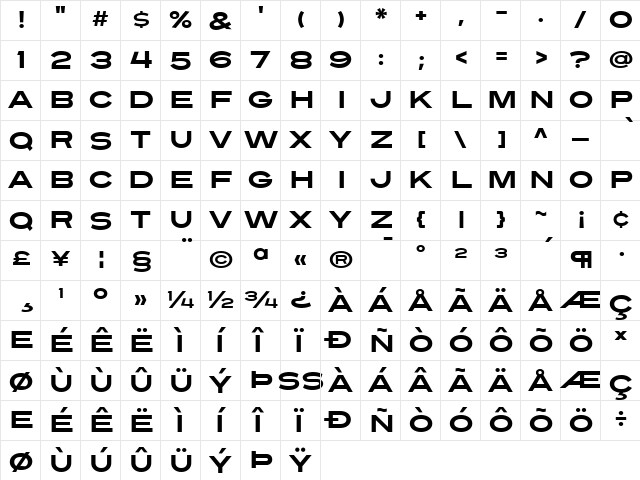
Turnpike Regular
| Foundry | Font Diner |
| Designer | Stuart Sandler |
Design Context for Turnpike Typeface
Turnpike offers clean, dependable letterforms without strong stylistic allegiance, making it a practical choice for designers who need flexibility.